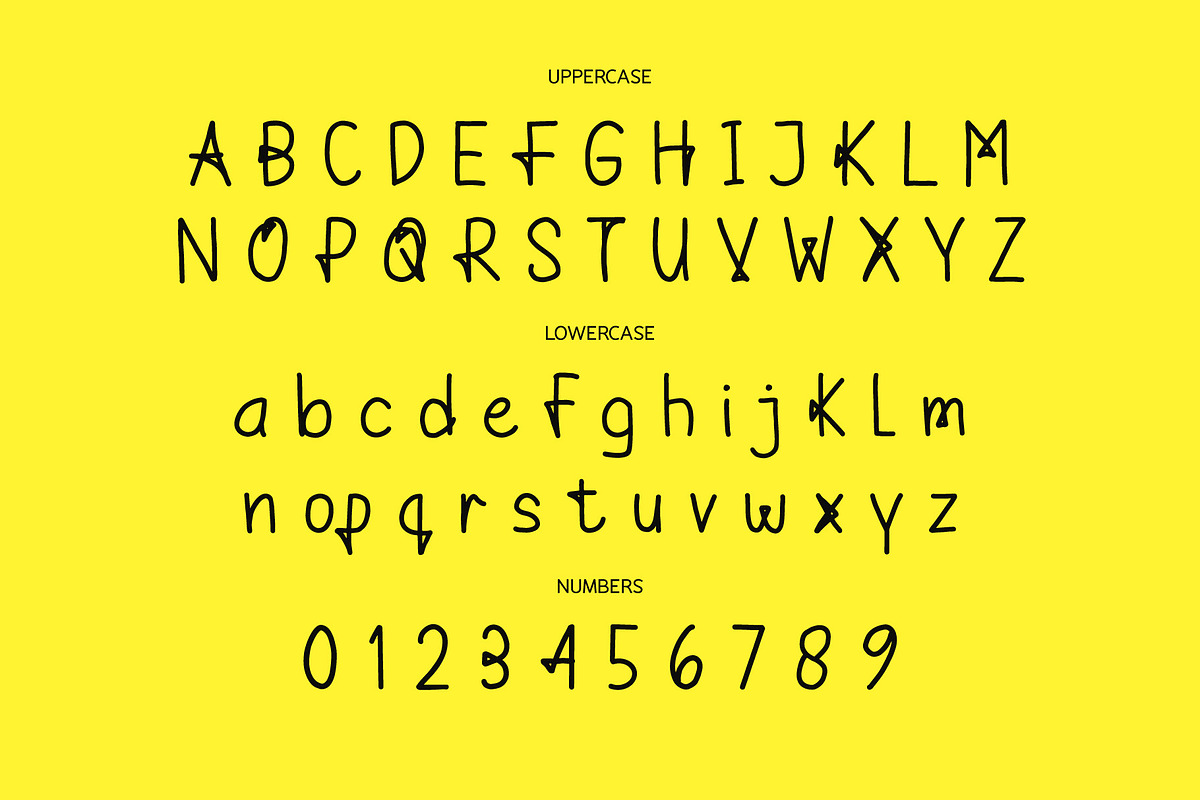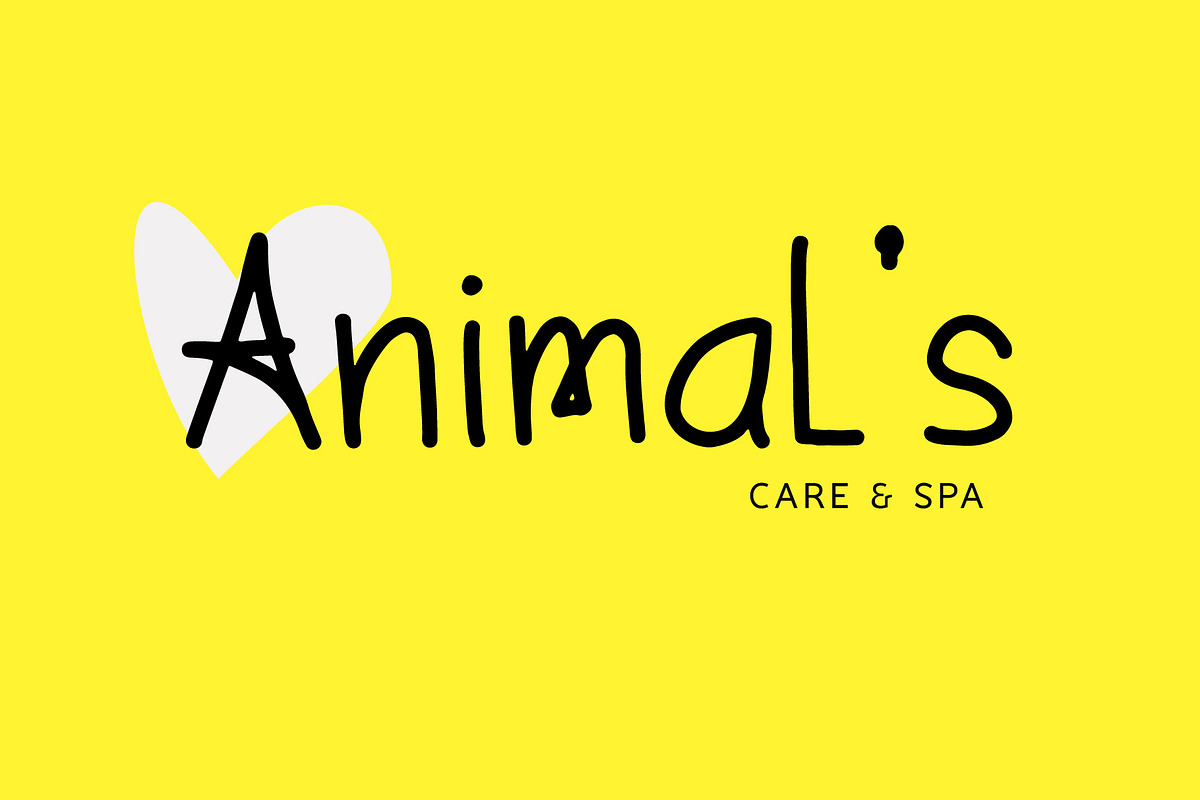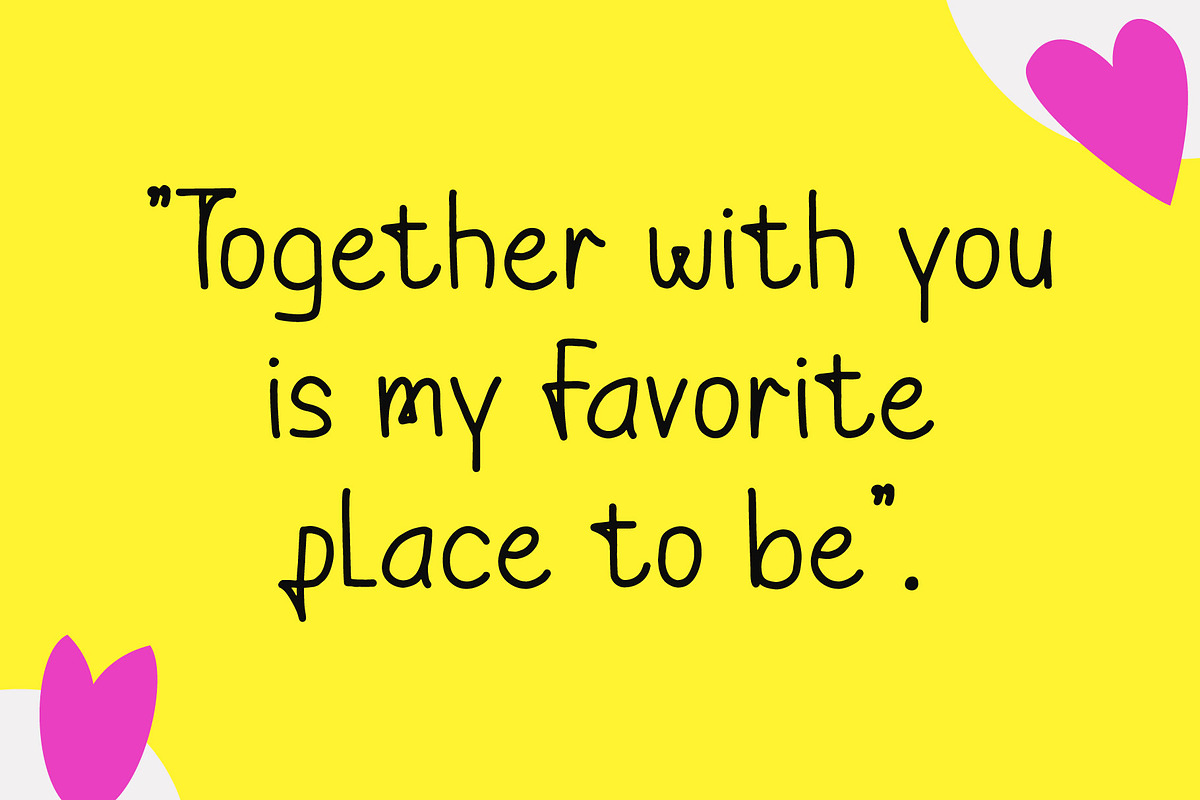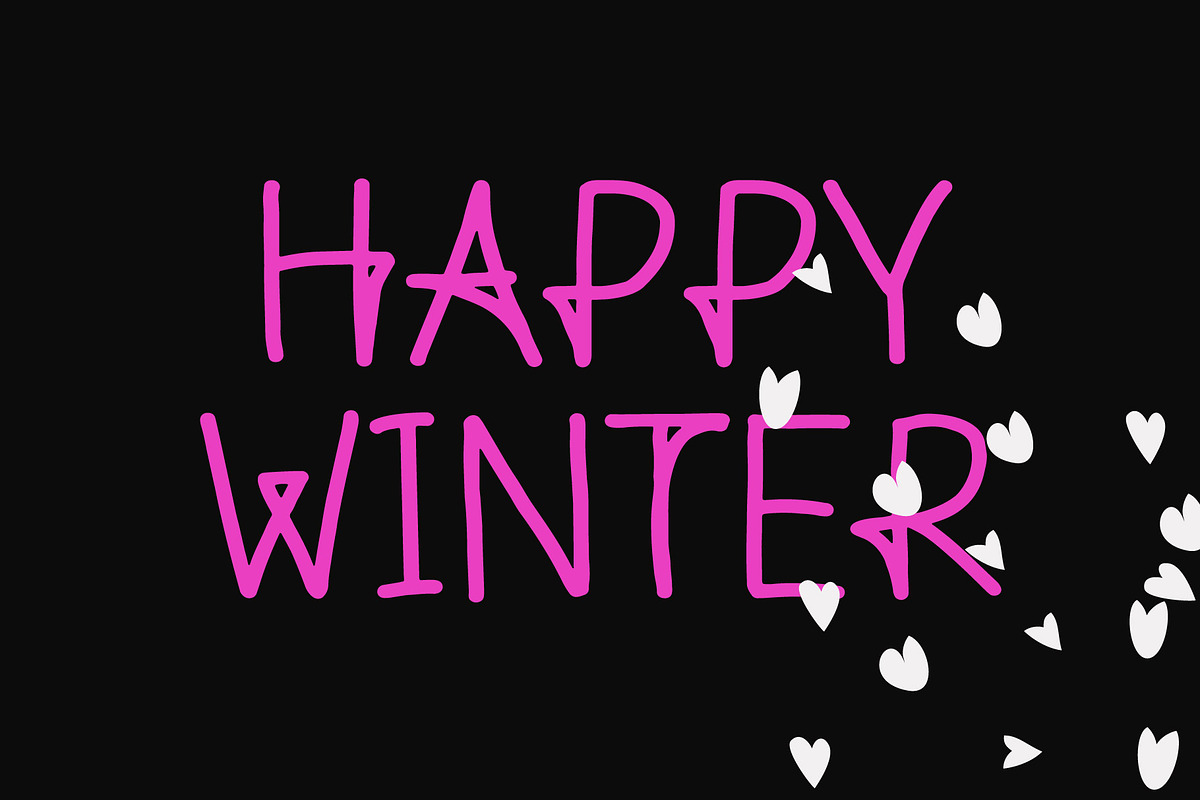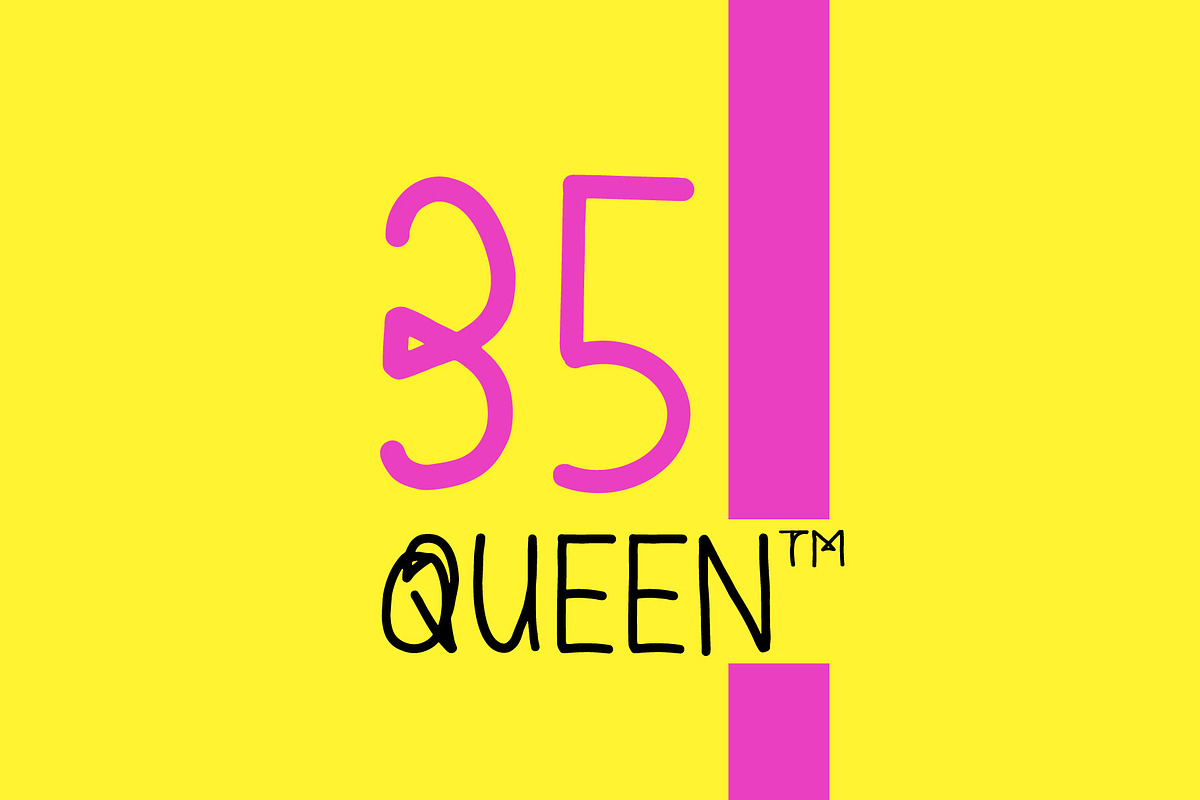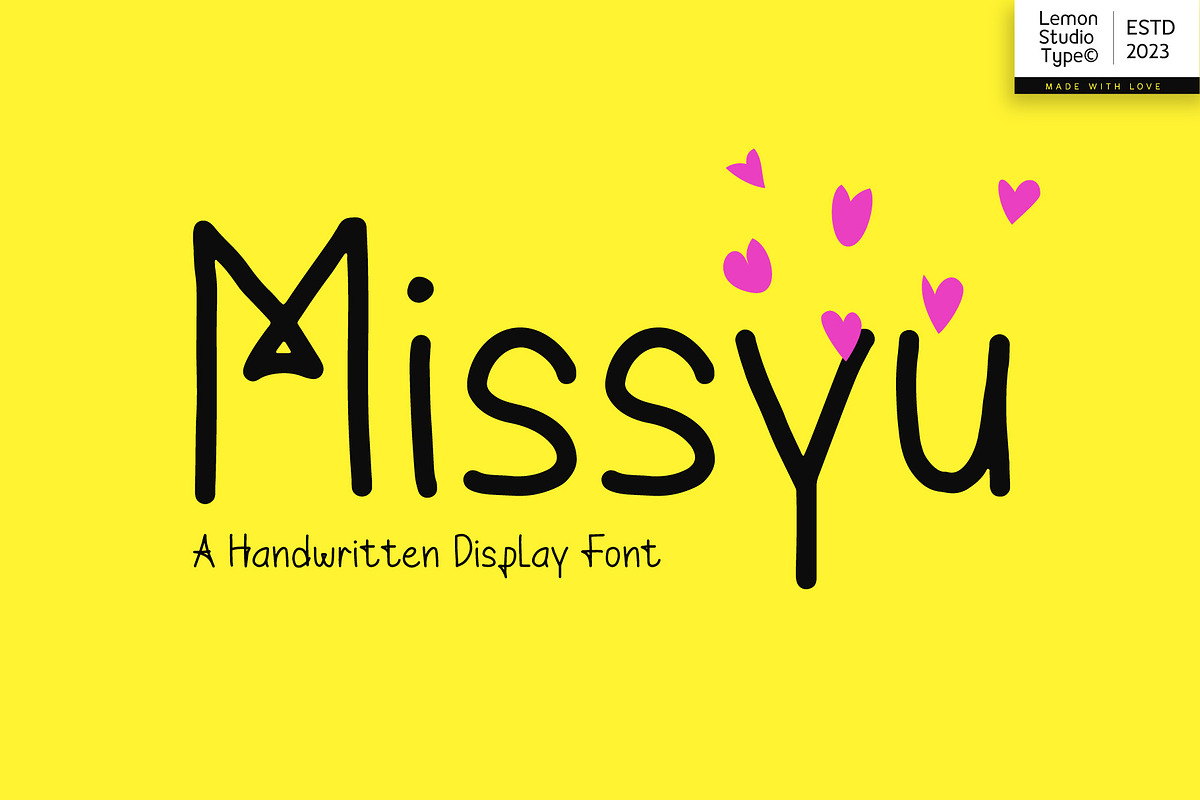
Missyu - Cute Handwritten
Missyu is a monoline font that is made by hand and makes it look unique, this font is included in sans serif so it's easy for you to read even though the characters are mixed with different inspirations. So perfect for titles or headings for book covers, to complement your posters and quotes, and many more.